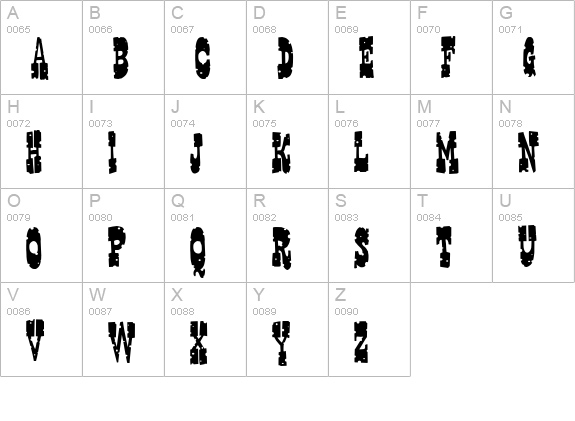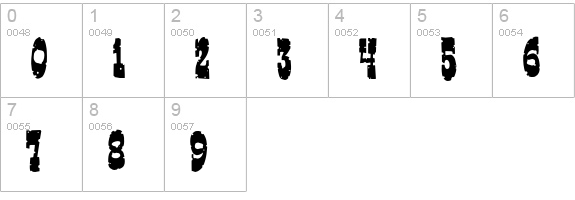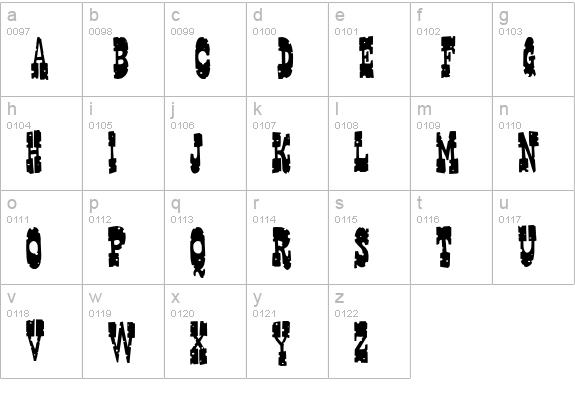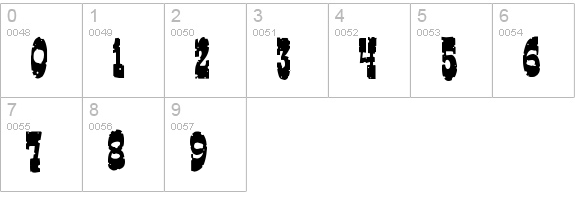
Gringo Nights is a whimsical and playful font that exudes a carefree and fun-loving vibe. Its quirky and irregular letterforms give off a sense of spontaneity and creativity, making it perfect for projects that require a touch of whimsy. With its unique style and charming aesthetic, Gringo Nights is sure to bring a smile to anyone who sees it. The best part? Gringo Nights is available for free download at FontsMarket.com, making it accessible to all designers and creatives looking to add a playful twist to their work. Whether you're designing greeting cards, posters, or social media graphics, Gringo Nights is a versatile font that will add a touch of personality to any project. Download it today and let your creativity run wild with this delightful typeface.